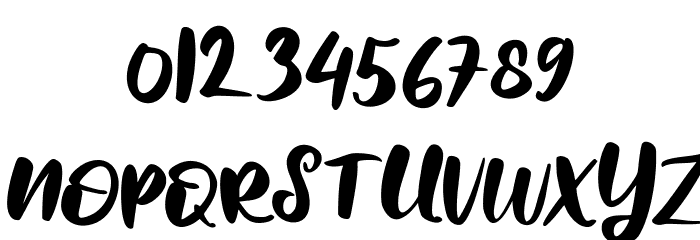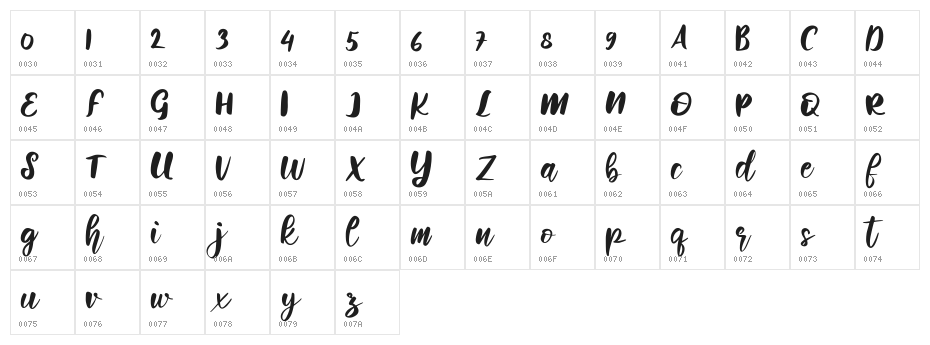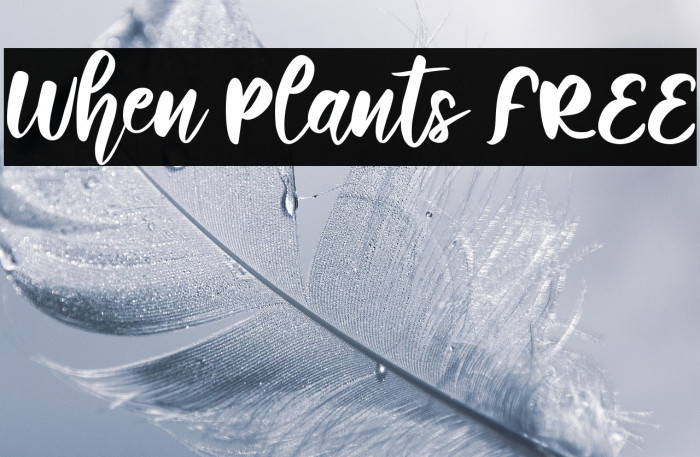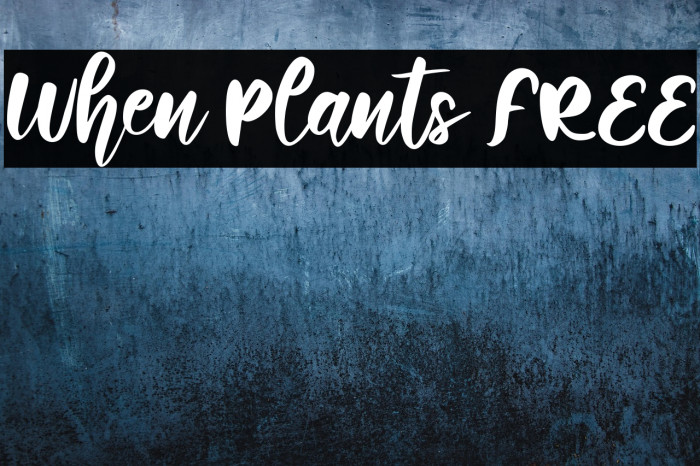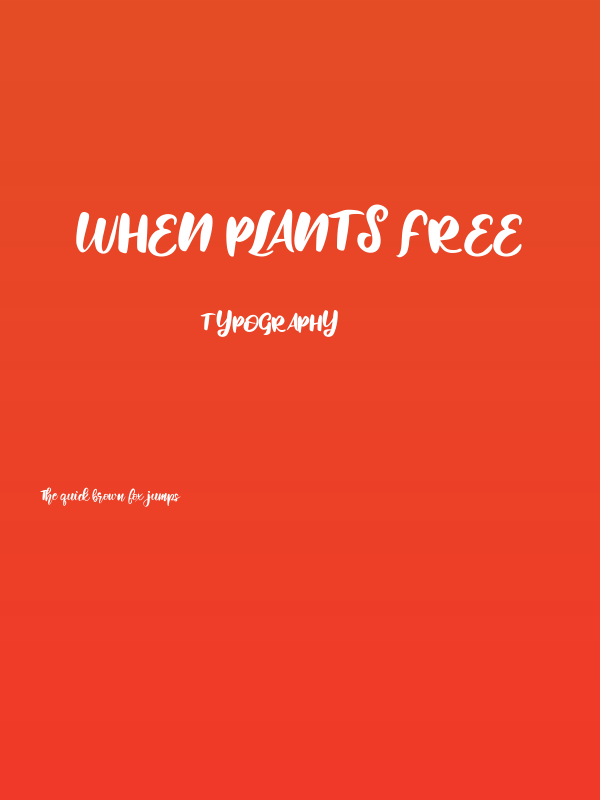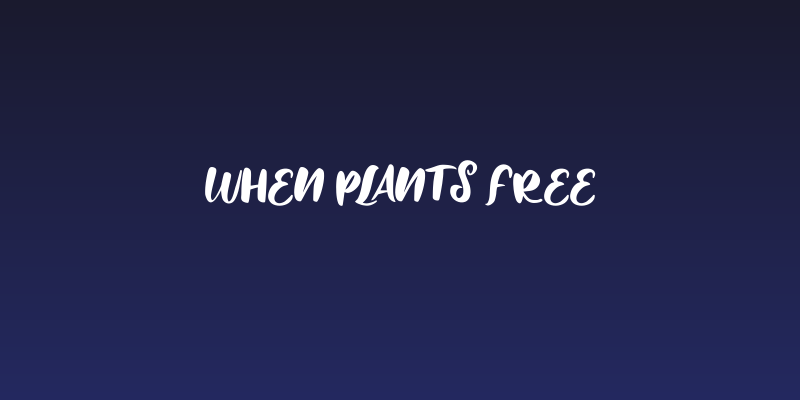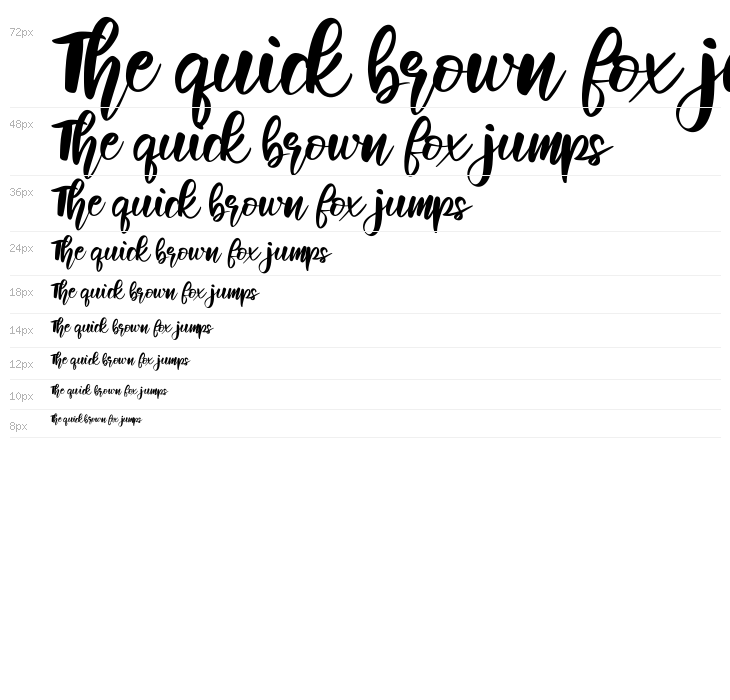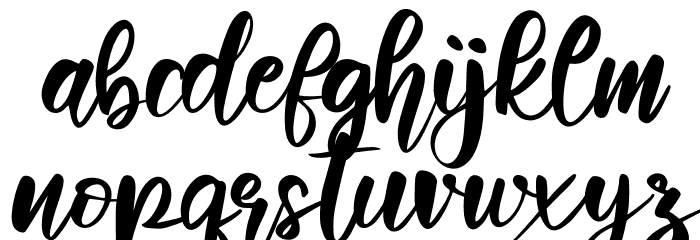
When Plants FREE Font
When Plants FREE Description
This font features a bold, expressive script style with a hand-drawn appearance. The letters are connected in a fluid manner, giving it a dynamic and lively feel. The uppercase characters are slightly more structured, while the lowercase letters exhibit more loops and curves, enhancing the handwritten aesthetic. The numbers and special characters maintain the same playful and artistic style, making the font versatile for various creative applications. Its bold strokes and smooth curves make it stand out, perfect for designs that require a personal touch.
Use CaseLogos, Headlines, Invitations
Proposed ProjectsIdeal for greeting cards, invitations, branding, and social media graphics.